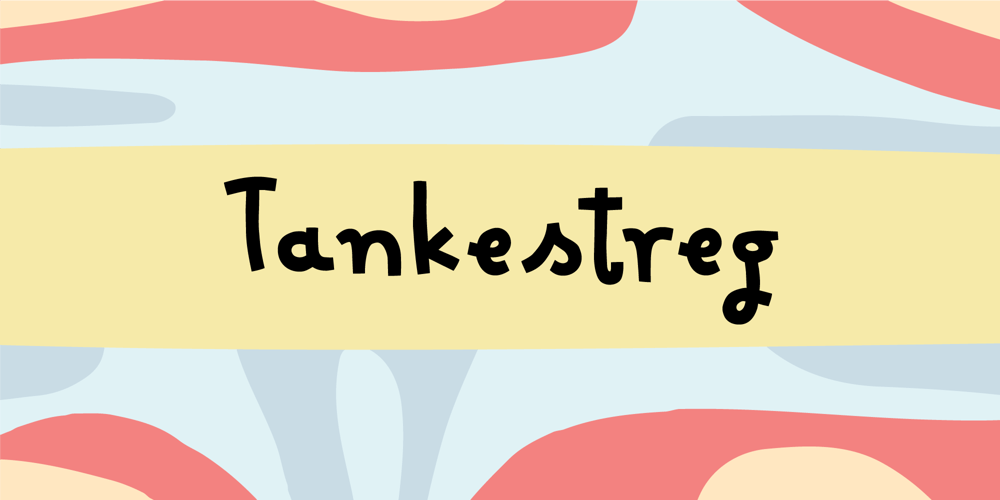
Tankestreg Font Family was designed by Jakob Fischer and published by PizzaDude.dk. Tankestreg contains 2 styles and family package options. Tankestreg is danish for “dash” I use the “tankestreg” all the time, and some people would probably say I do it too often – but I don’t care! Did you notice I just used the dash?! :)Well, my Tankestreg font is laid back and quite unusual in an odd way. It is super legible and has a mixed handmade/comic look to it. Use it for massive texts or as headlines and shout-outs!